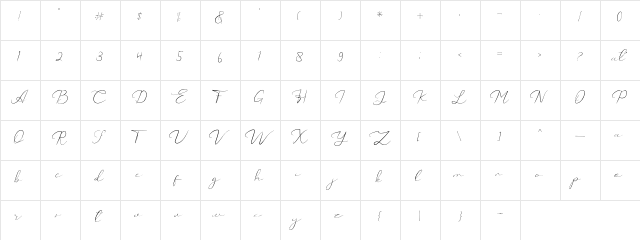
Catalan Signature Regular
Design Context for Catalan Signature Typeface
Catalan Signature is a composed and adaptable typeface that performs quietly and consistently across a wide range of design contexts.